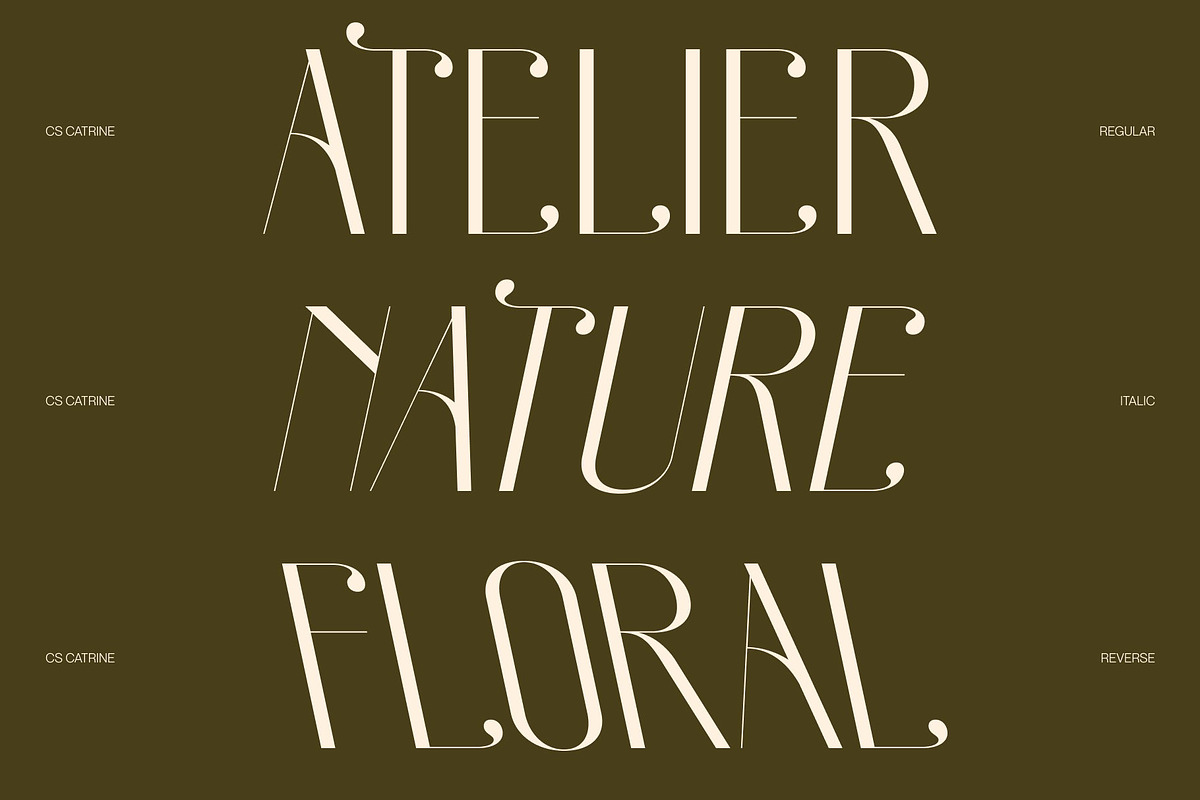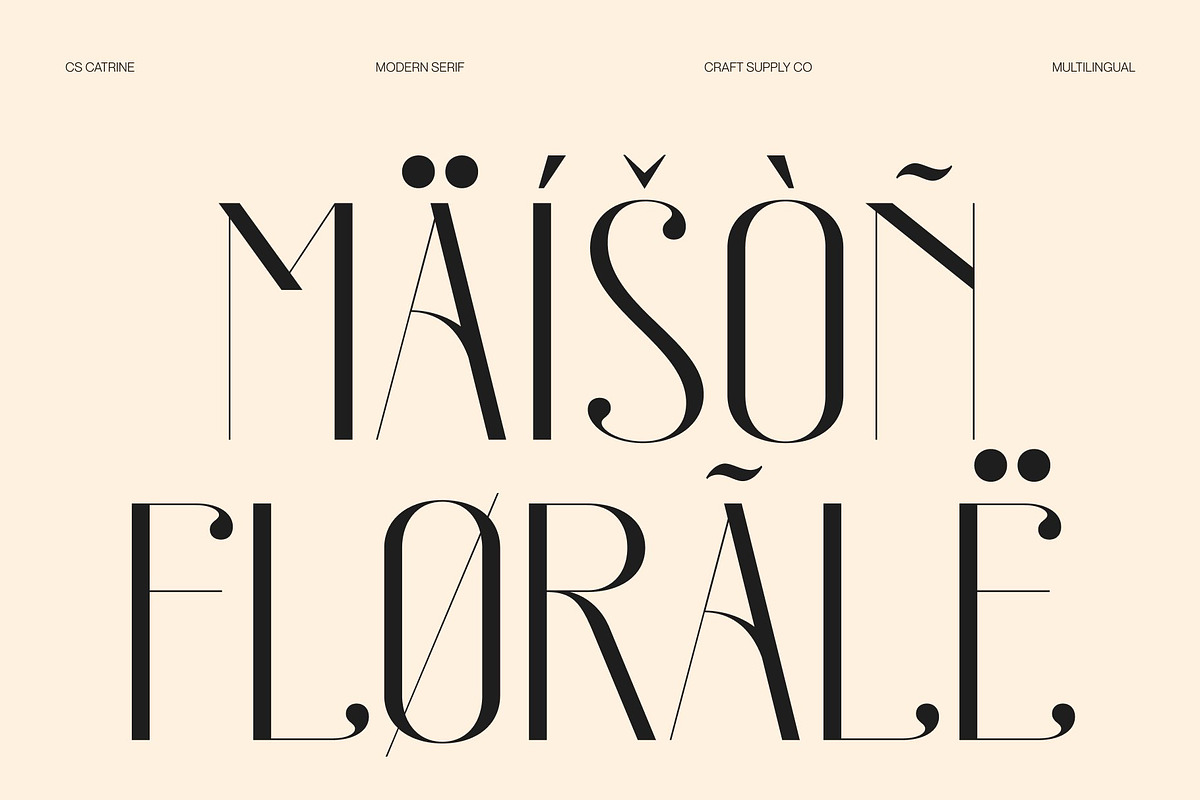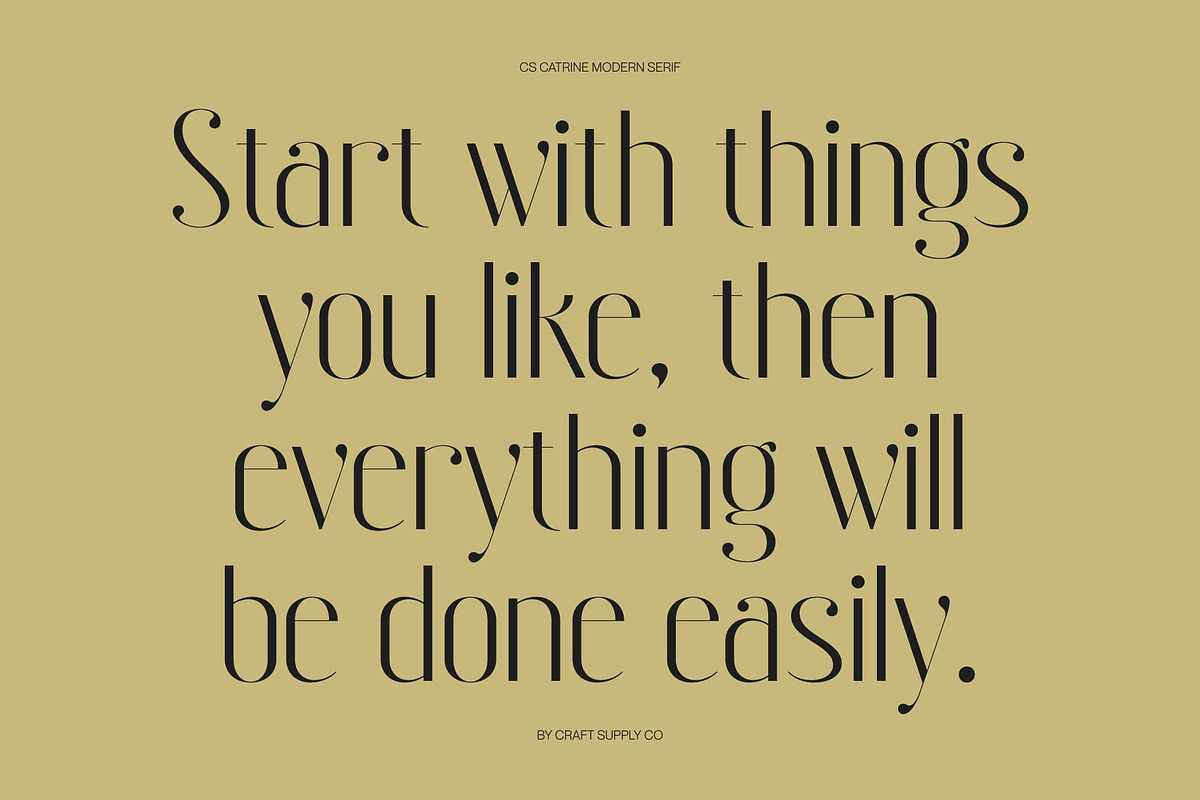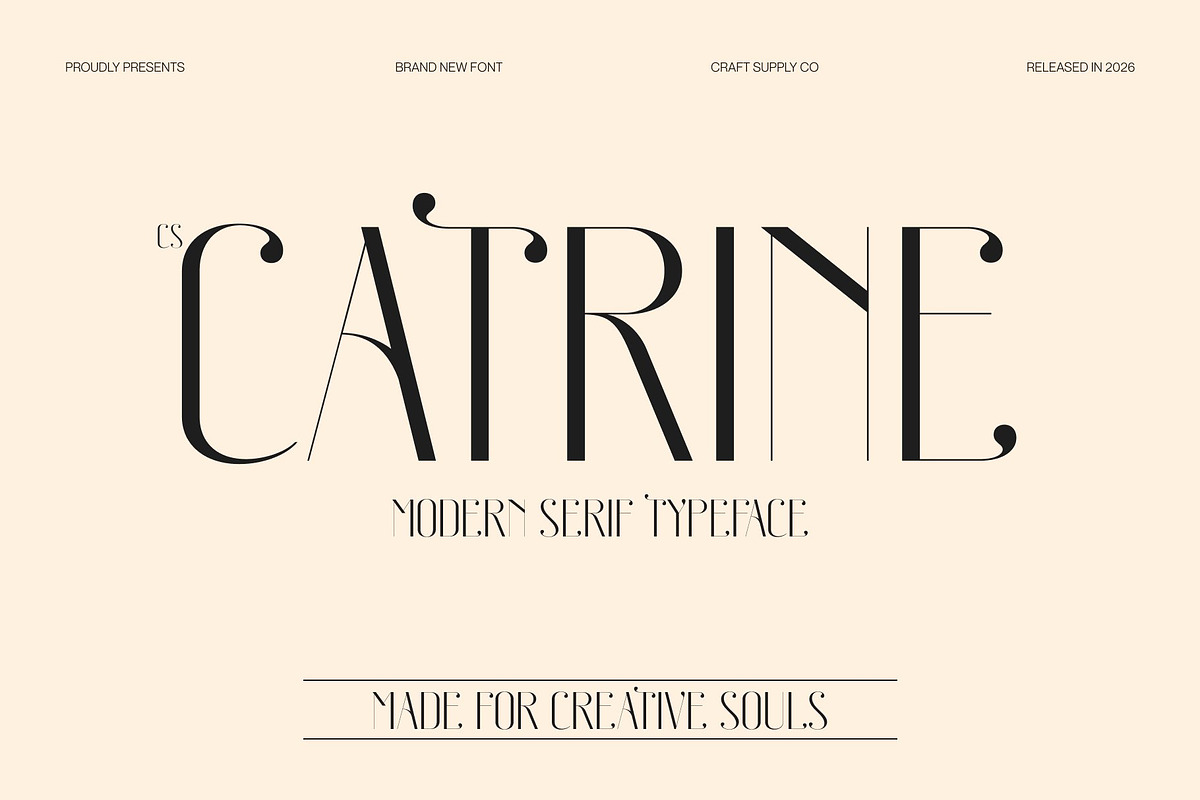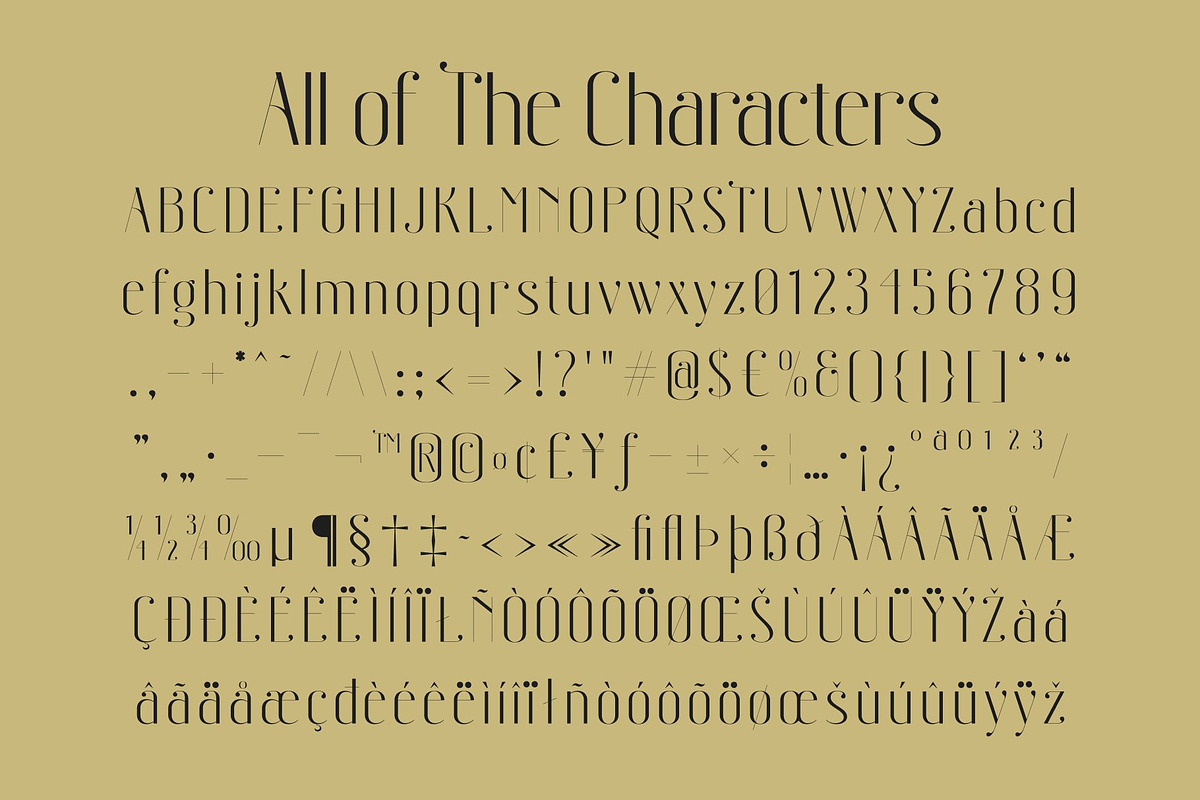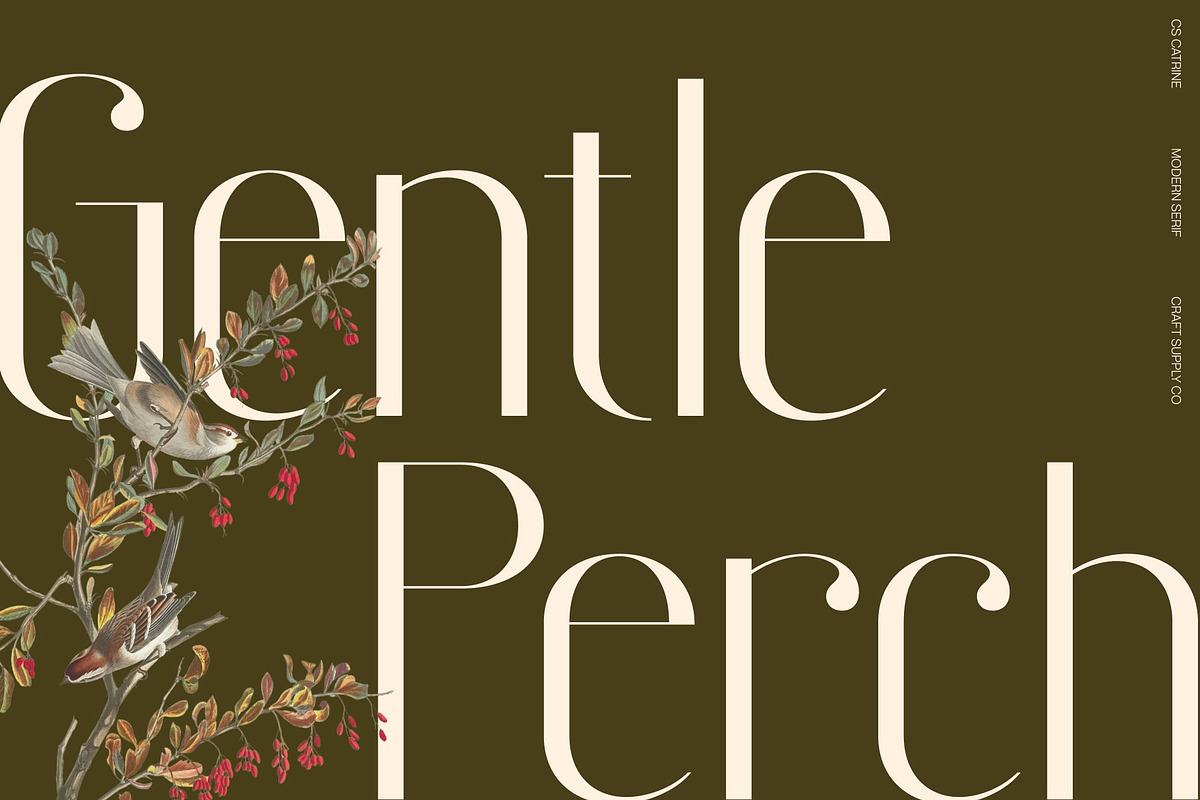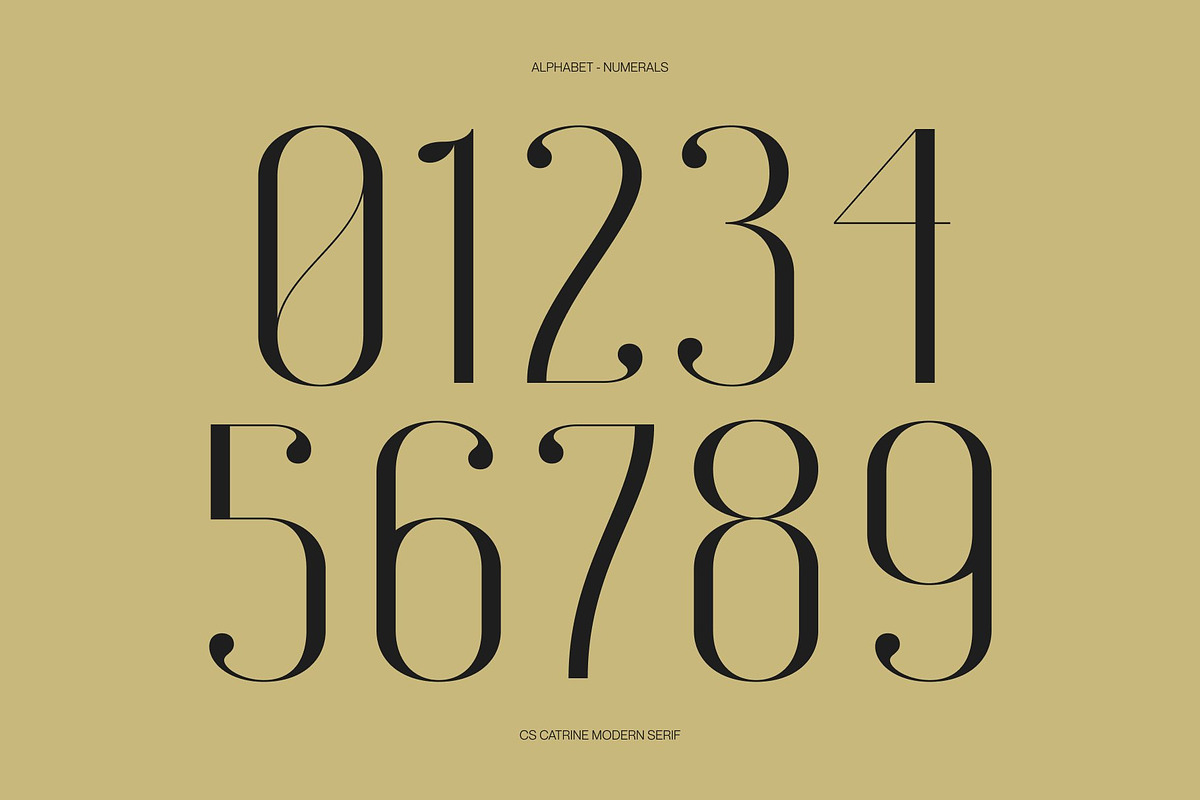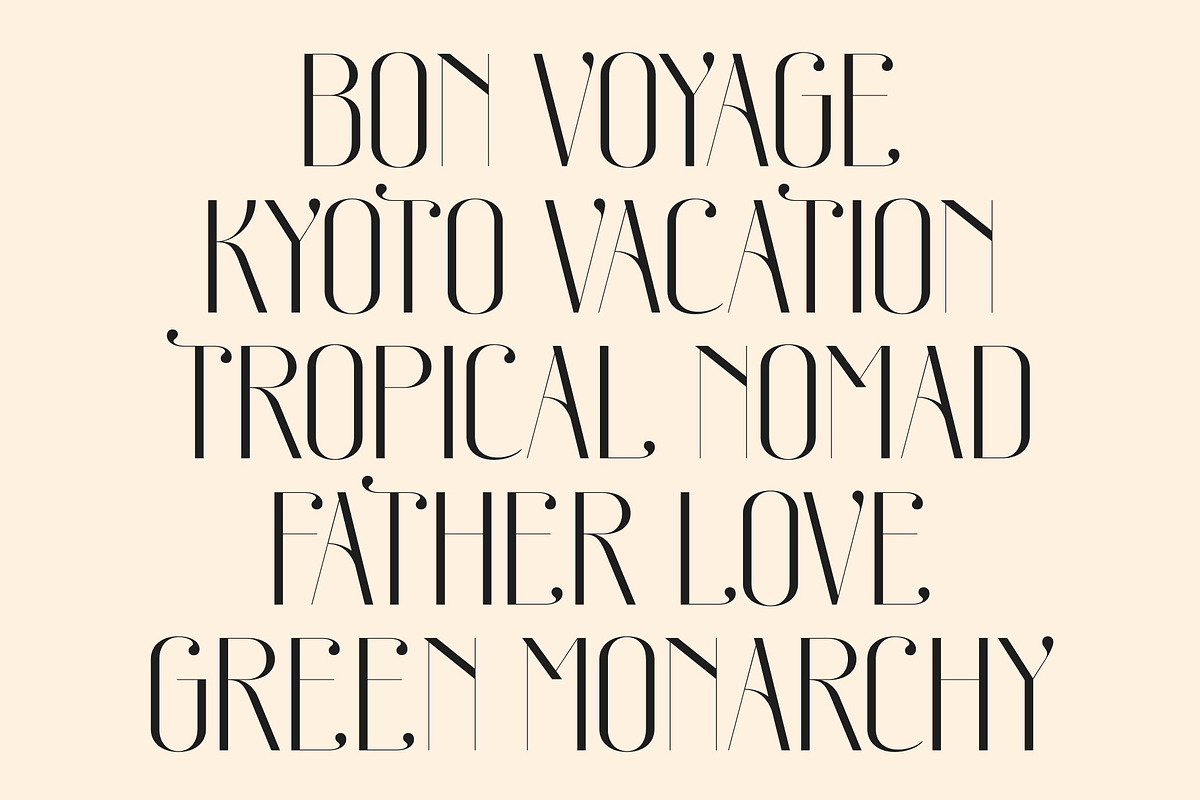
CS Catrine – Modern Sans Serif Font
CS Catrine – Modern Sans Serif Typeface: Where Condensed Elegance Meets Contemporary Beauty
Sleek Condensed Forms with Refined Elegance This is a modern sans serif typeface designed with sleek elongated proportions and a refined condensed structure that creates a clean and contemporary appearance. Its graceful letterforms deliver a sophisticated visual rhythm, allowing every composition to feel polished, stylish, and modern. The slim structure enhances elegance while maintaining strong readability and visual impact.
Contemporary Minimalism with Luxurious Appeal This font offers a typographic style that feels both modern and timeless. Its clean lines and balanced construction radiate beauty and sophistication, making it perfect for designs that seek clarity with a high-end aesthetic. The result is a typeface that communicates confidence, elegance, and professionalism.
Versatile Style for Premium Design Projects CS Catrine’s condensed structure and contemporary simplicity make it highly adaptable across both editorial and branding applications. Whether used in striking headlines or elegant layouts, the font maintains a graceful and refined presence that enhances modern visual identities.
Perfect for Luxury Branding, Fashion, and Editorials This is ideal for luxury branding, editorials, posters, magazines, fashion and beauty projects, and creative works seeking a graceful yet modern impression. Its sleek condensed forms make it perfect for logos, packaging, magazine titles, invitations, and premium promotional materials.
CS Catrine Regular
CS Catrine Italic
CS Catrine Reverse Italic